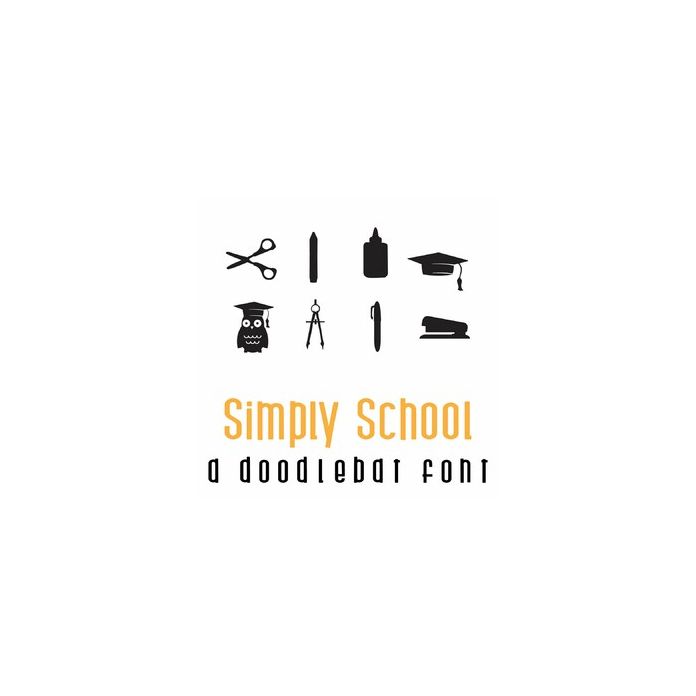
This fun full-color doodlebat font features 26 school themed silhouettes. Perfect for teachers, classrooms, students, cards, crafts, gifts, scrapbook pages, planner stickers, and more!